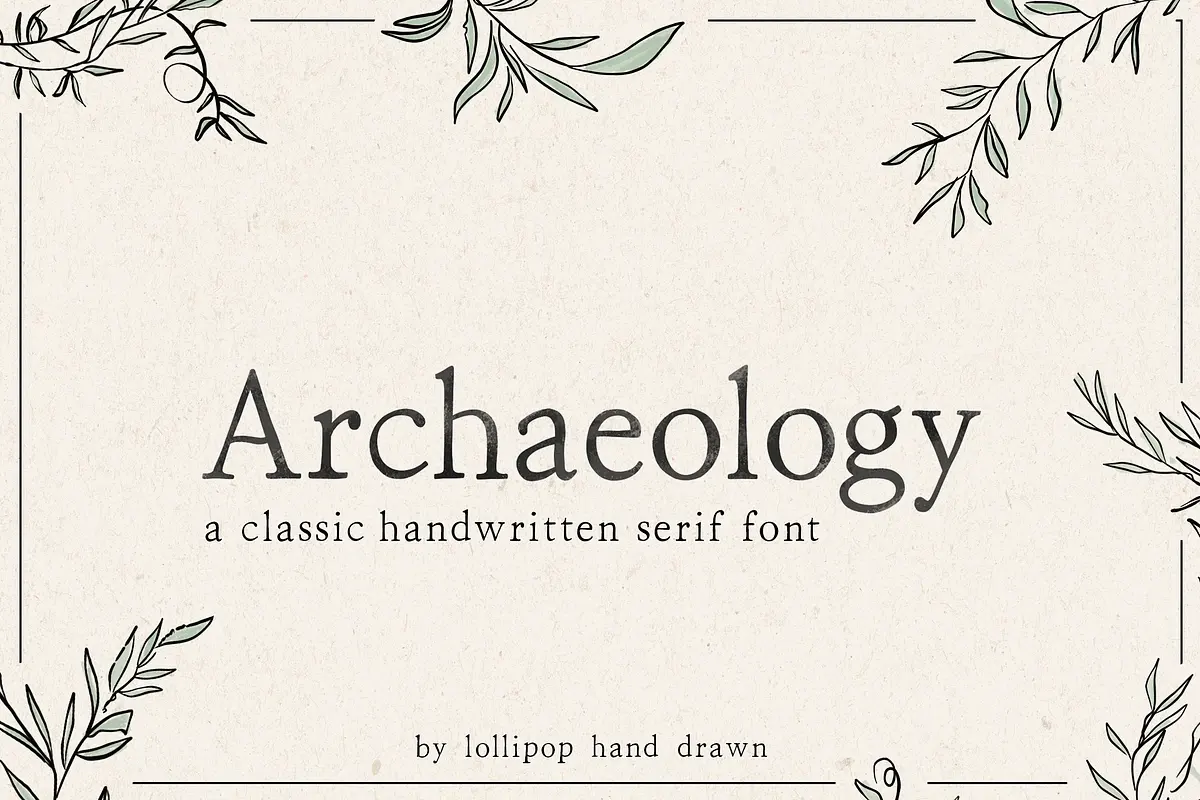
Archaeology Serif Font Free Download
Archaeology Serif Font Free Download is a sophisticated and timeless typeface that draws inspiration from classical inscriptions and ancient letterforms. This elegant serif font is perfect for projects that require a historical or scholarly aesthetic, such as book covers, museum brochures, or academic presentations. With its refined lines and high readability, Archaeology Serif brings both character and clarity to any design.
Designers looking to evoke a sense of heritage and sophistication will find Archaeology Serif Font Free Download to be an ideal addition to their font library. Whether you’re crafting logos, editorial layouts, or formal invitations, this typeface offers exceptional versatility and charm. Its carefully crafted serifs and balanced proportions create a professional and polished look.